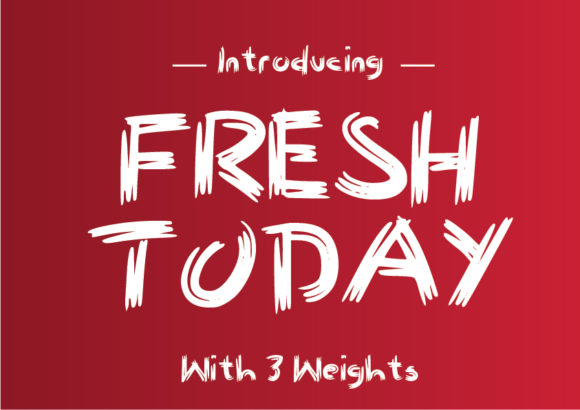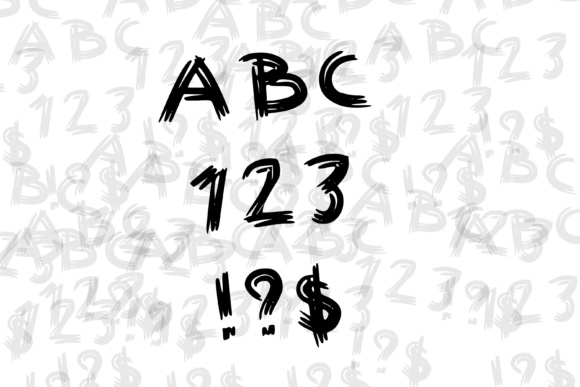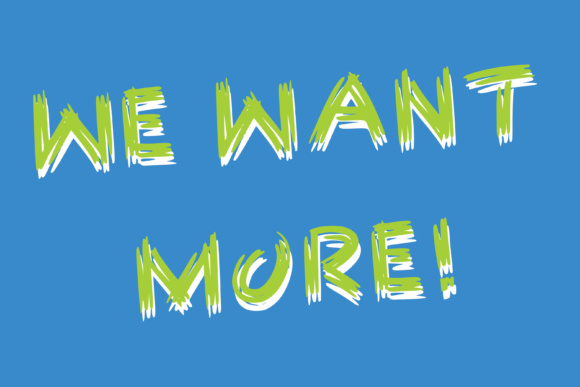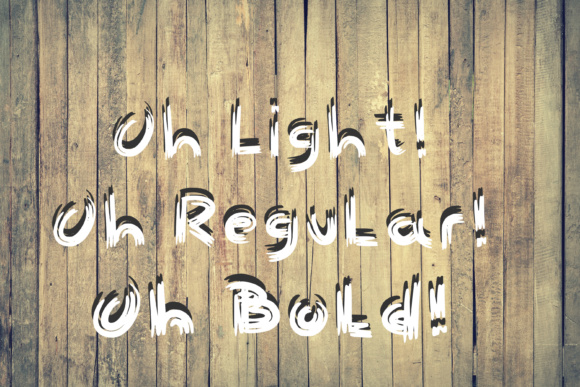
Fresh Today Font
About Fresh Today Font
Fruit stand sellers shouting out todays fresh deal with there hand painted signs is what we had in mind for this font. We also thought of handmade painted music festivals and event posters in mind this hand made brush stroked font has tons of cool character with its stroked effect. Use for those designs that require a special touch and a handmade poster only found pinned up over the town and city streets.